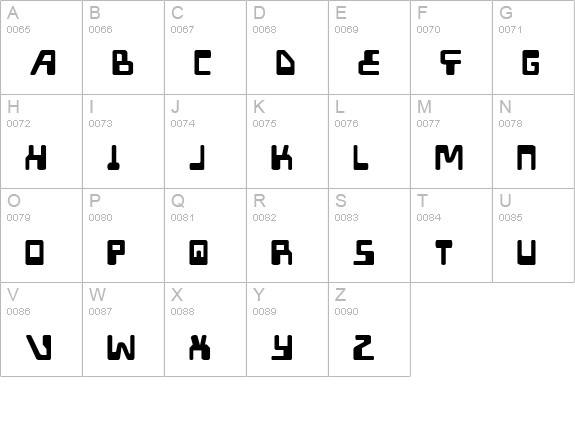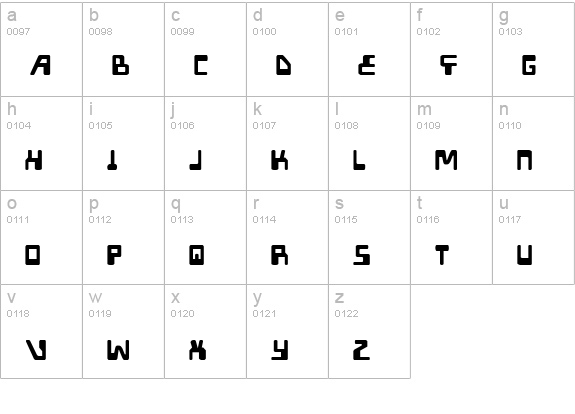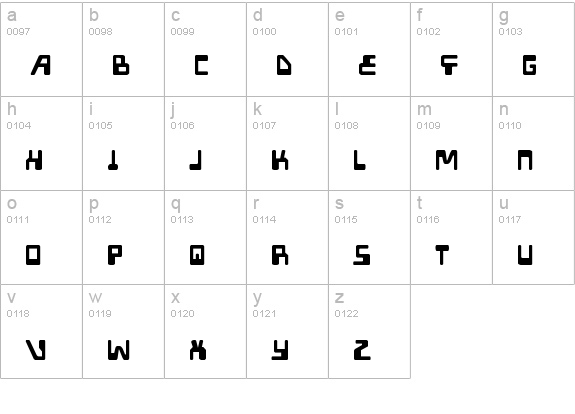
XPED Font Details
Introducing XPED font - a stylish and modern typeface that exudes elegance and sophistication. With its sleek lines and contemporary design, XPED font is perfect for adding a touch of class to any project. Whether you're working on a logo, website, or print design, this versatile font is sure to make a statement. The best part? XPED font is completely free to download at FontsMarket.com. That's right, you can elevate your designs with this high-quality font without spending a dime. Don't miss out on the opportunity to enhance your work with the distinctive charm of XPED font. Download it today and take your designs to the next level!